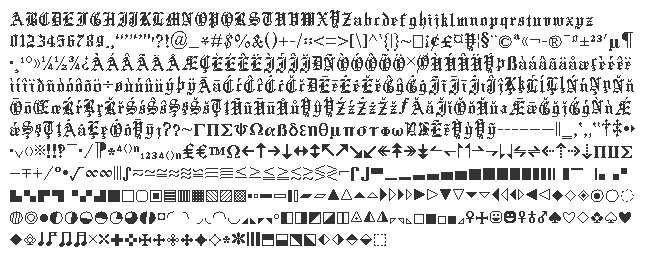
Xentype is an ornate, medieval-style serif pixel font recreation of the Blackletter category, based on the larger original main dialog font appearing in the game Knights of Xentar, known as Dragon Knight III in Japan, which was developed by ELF Corporation and released by Megatech Software for PC DOS in 1995 and even earlier for the NEC PC-8801 and various other systems in 1991. The character set of this font was greatly expanded with countless additional special characters, diacritic variants, unique glyphs and the like, each one of them designed to match the spirit and style of the original font design. To recreate the original in-game appearance of this font with programs like Photoshop and the like I recommend using the OpenType font file included in the download package in combination with font sizes that are multiples of 32pt while avoiding anti-aliasing or other font smoothing methods. Features: • 594 characters total • Proportional blackletter serif typeface • Countless additional special characters, diacritic variants, etc. Please contact me for any commercial use of my fonts. Copyright © 2016 Caveras. All rights reserved. |